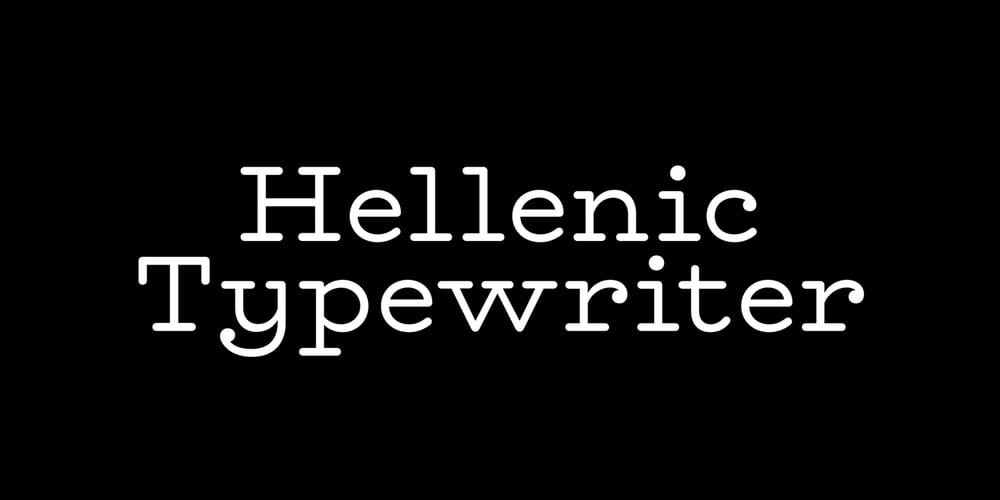
Hellenic Typewriter
Hellenic Typewriter font
Hellenic Typewriter Font Family was designed by Lewis MacDonald and published by Polytype. Hellenic Typewriter contains 10 styles and family package options. Hellenic Typewriter is a slab serif for text and display, combining the typewriter aesthetic’s balance of elegance and pragmatism with some of the extended western flavour of Hellenic Wide. Rounded strokes, some unorthodox slab details and playful, looping tails all add to Hellenic Typewriter’s warmth and approachability, while its typewriter-inspired proportions and clean forms provide rythym and an honest, confident voice. The lightest weights, laying bare the simple, partly-geometric and optically-monolinear construction, embody an assertive elegance. Ball terminals feature extensively throughout the design, in both lower and uppercase. This miroring of details creates a greater harmony between the cases and ensures that the true character of Hellenic Typewriter is not lost when setting in all-caps. Expressive true italics elaborate upon and emphasise some of the freer, more decorative elements of the roman styles.